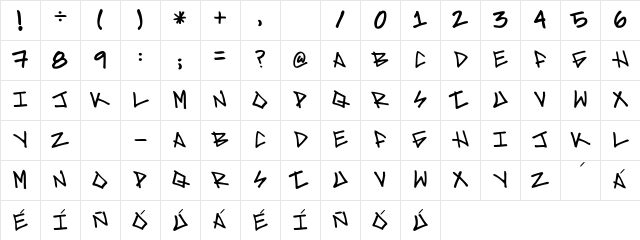
Complete Brave Regular glyph index. Displaying only characters natively supported by Brave Regular font.
Brave is a composed and adaptable typeface that performs quietly and consistently across a wide range of design contexts.